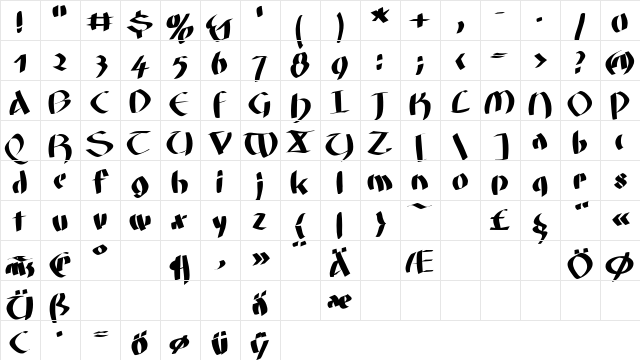
FatGrafCalliklein Regular
Design Context for FatGrafCalliklein Typeface
FatGrafCalliklein is a composed and adaptable typeface that performs quietly and consistently across a wide range of design contexts.